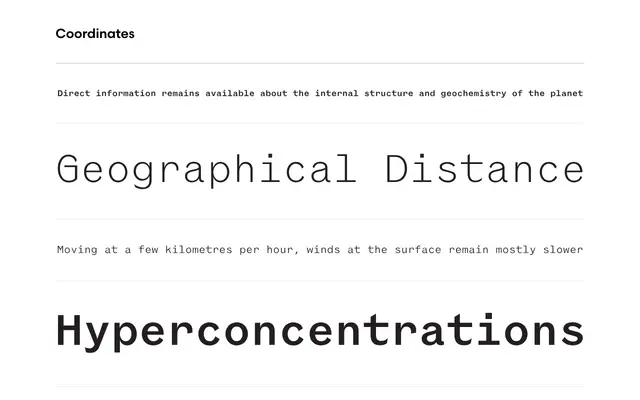
Coordinates
Process Type Foundry · Eric Olson · 2018
A monospaced tribute to the Bauer Type Foundry's Venus, blending Grotesque and Art Nouveau influences within the strict constraints of a fixed-width framework.
Eric Olson's 2018 design takes Venus, the early 20th century Bauer typeface, as its starting point and forces its formal tensions into a monospace grid. The resulting family of five weights with matching italics holds onto Venus's mix of Grotesque and Art Nouveau references while the fixed-width structure gives it a contemporary technical character. The ten styles sit naturally in editorial and coding contexts where historical warmth and mechanical precision are both welcome.
A monospaced typeface drawing on Grotesque and Art Nouveau influences, specifically referencing Venus by the Bauer Type Foundry; the monospace constraint is its defining structural feature.